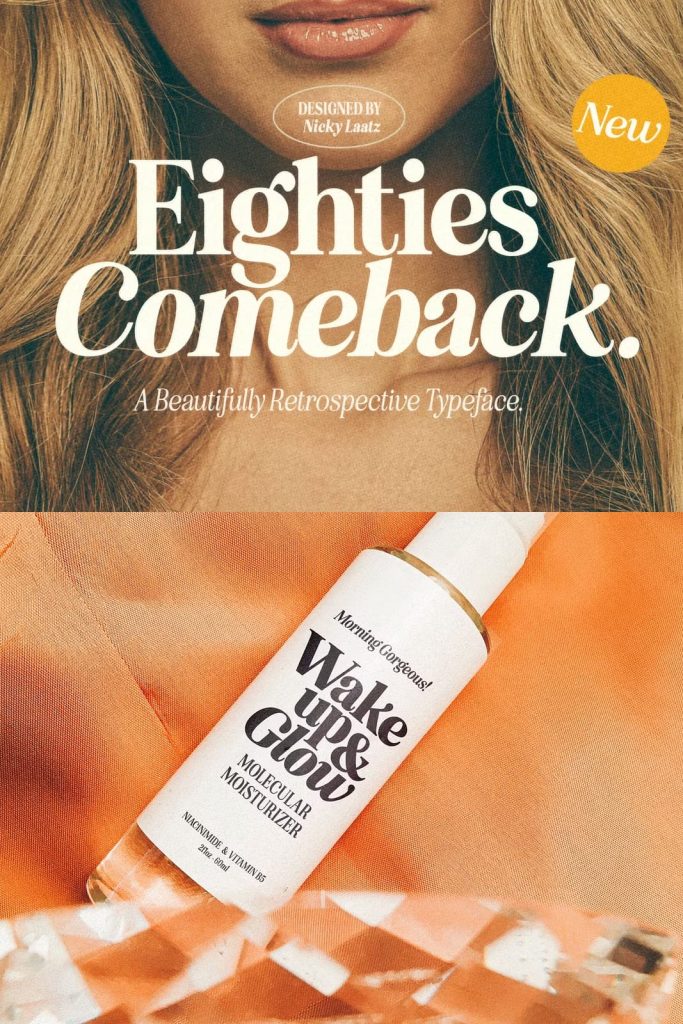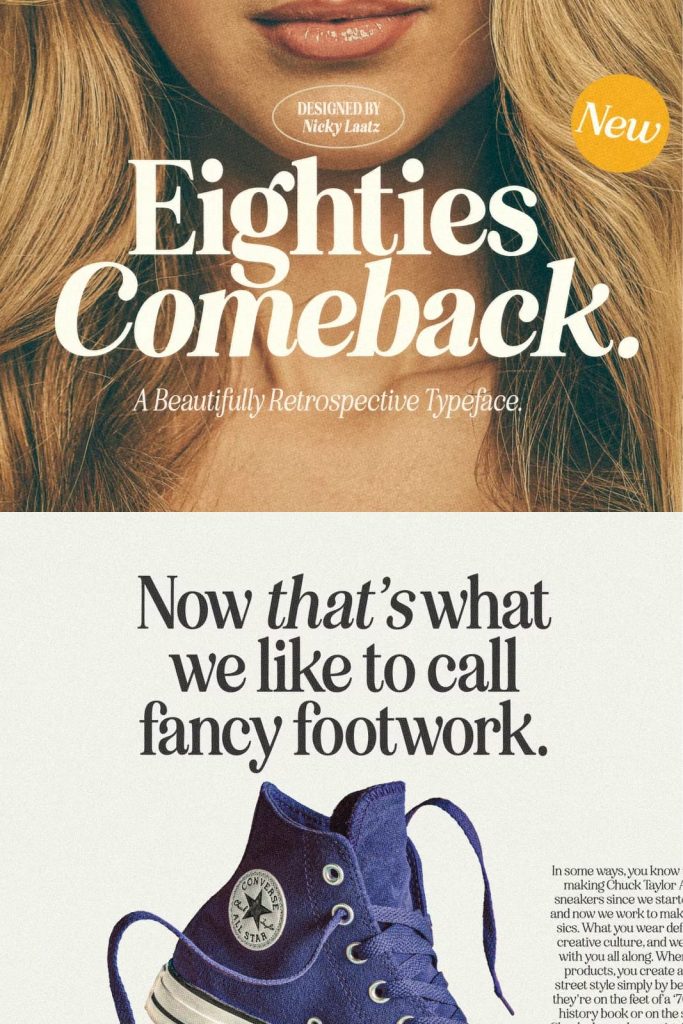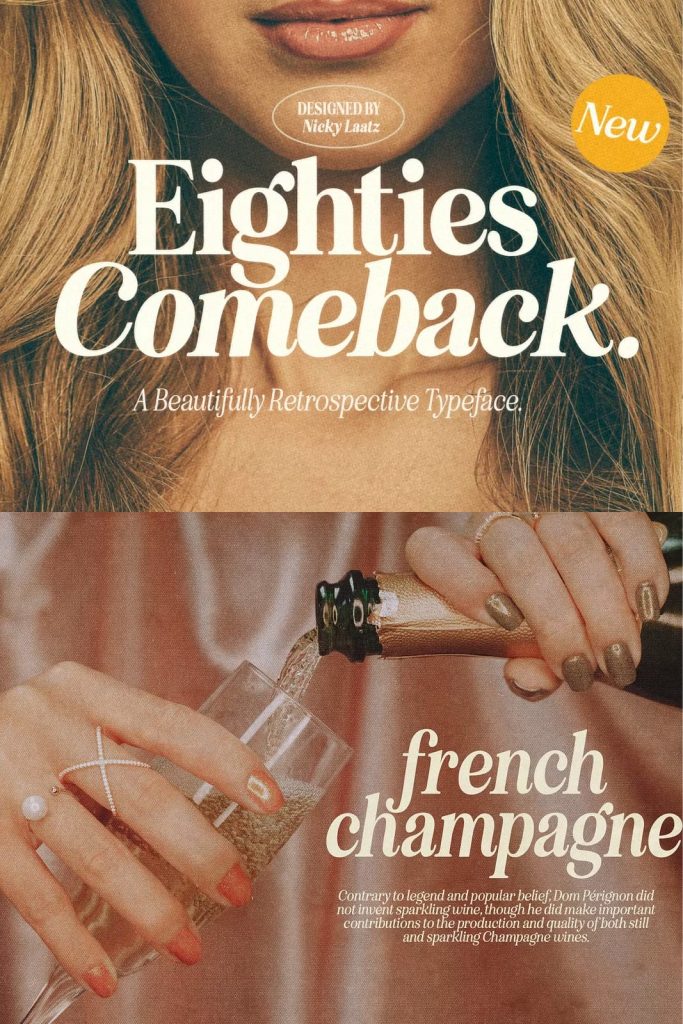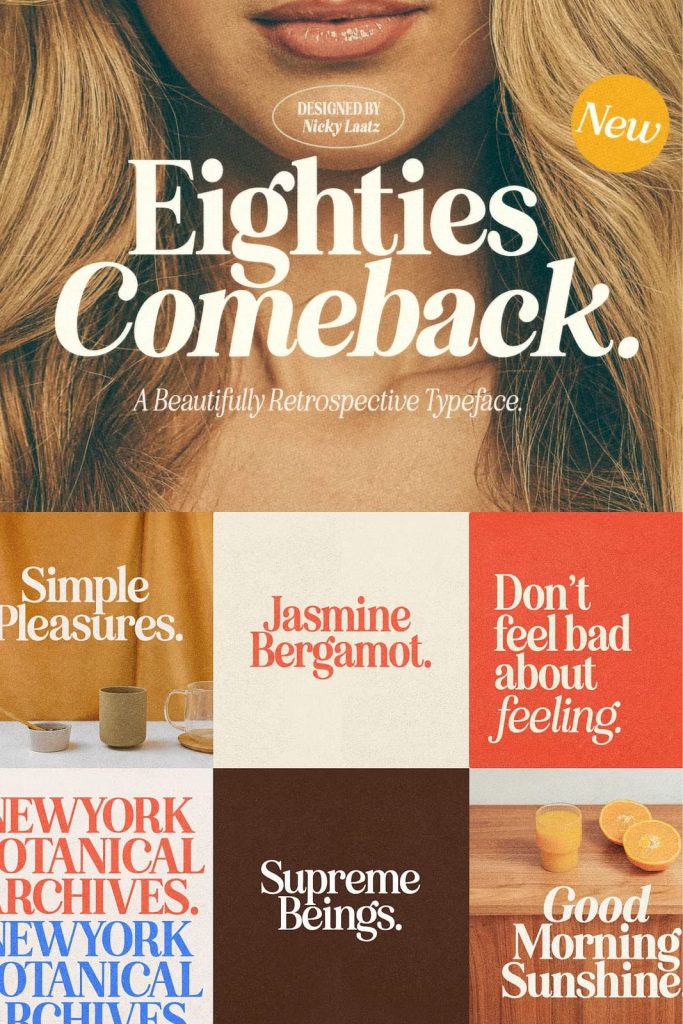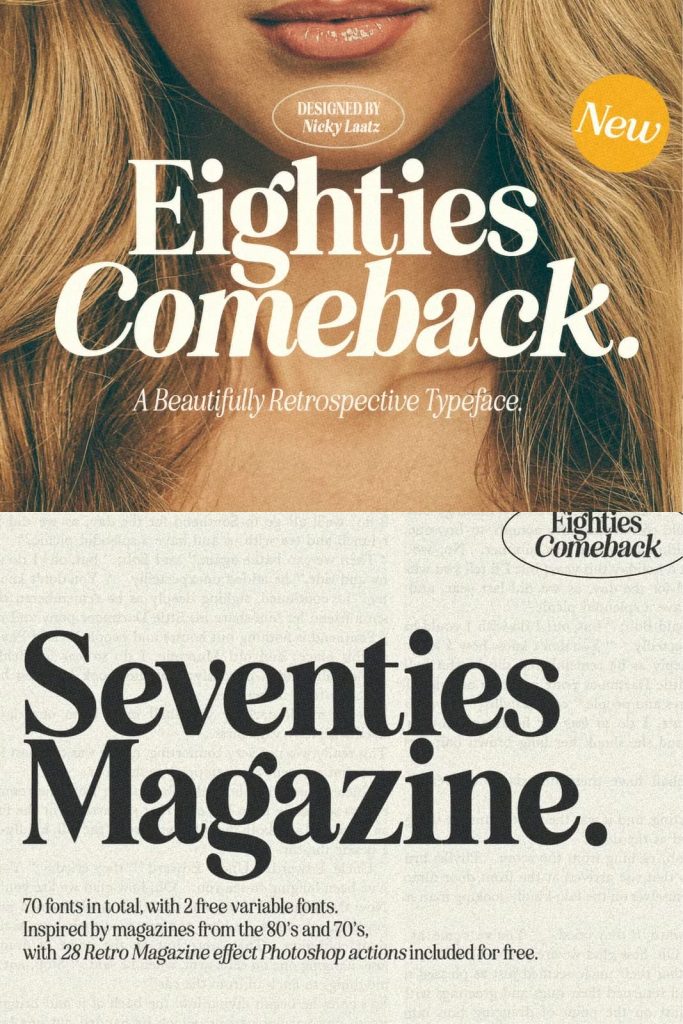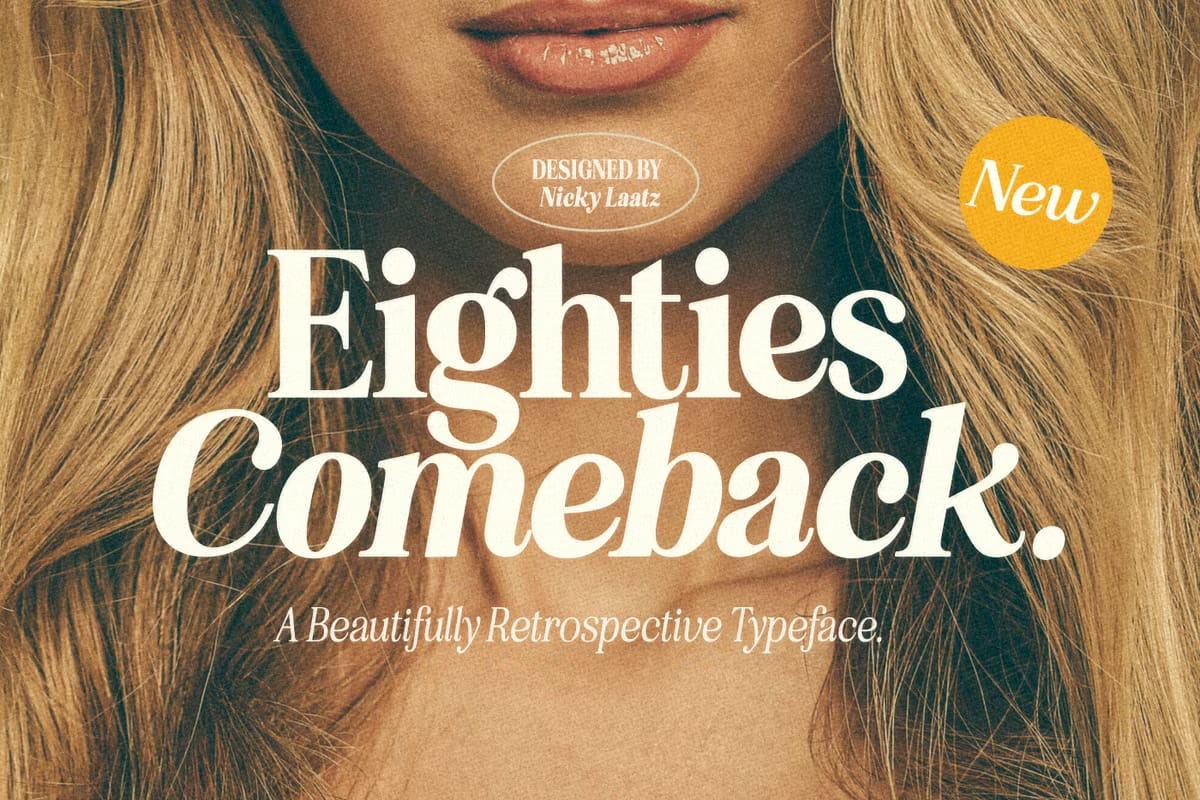
Eighties Comeback Serif (70 fonts)coreografyMay 5, 2025Fonts A flirtatiously charming 80’s retro-inspired typeface with wonderful versatility given it includes 70 fonts. Download